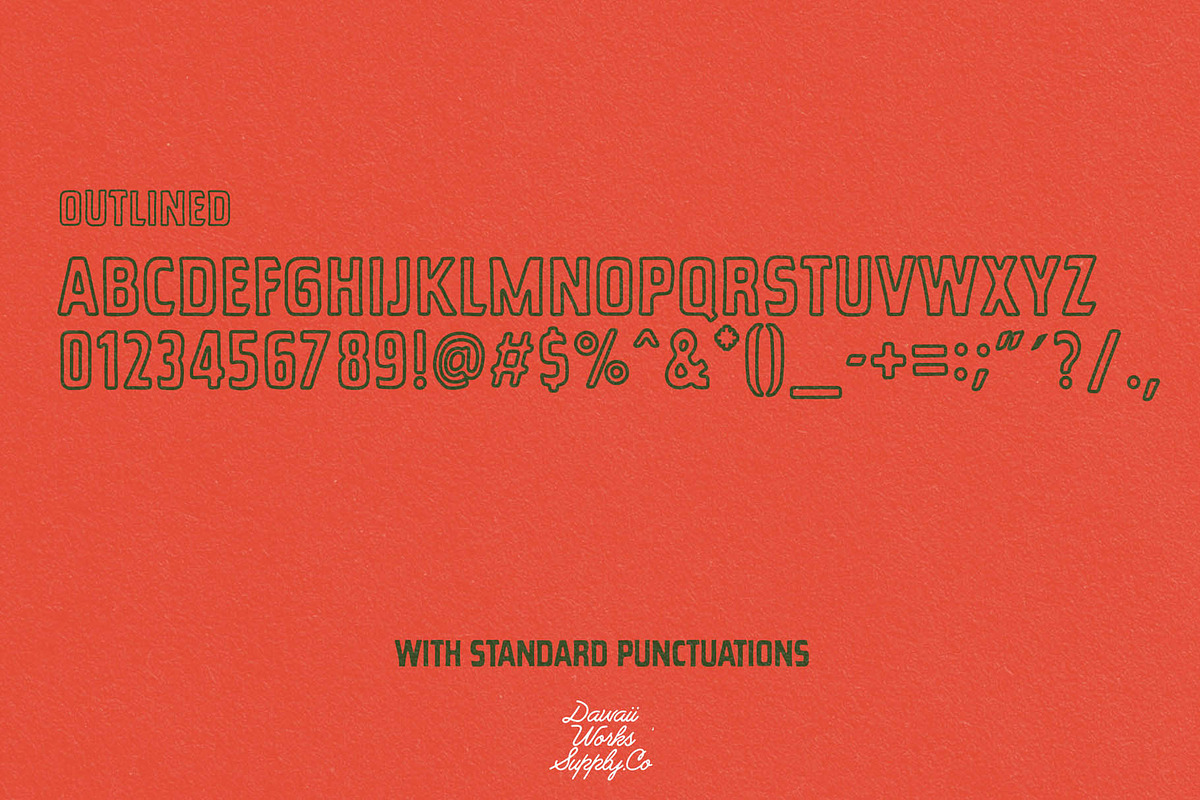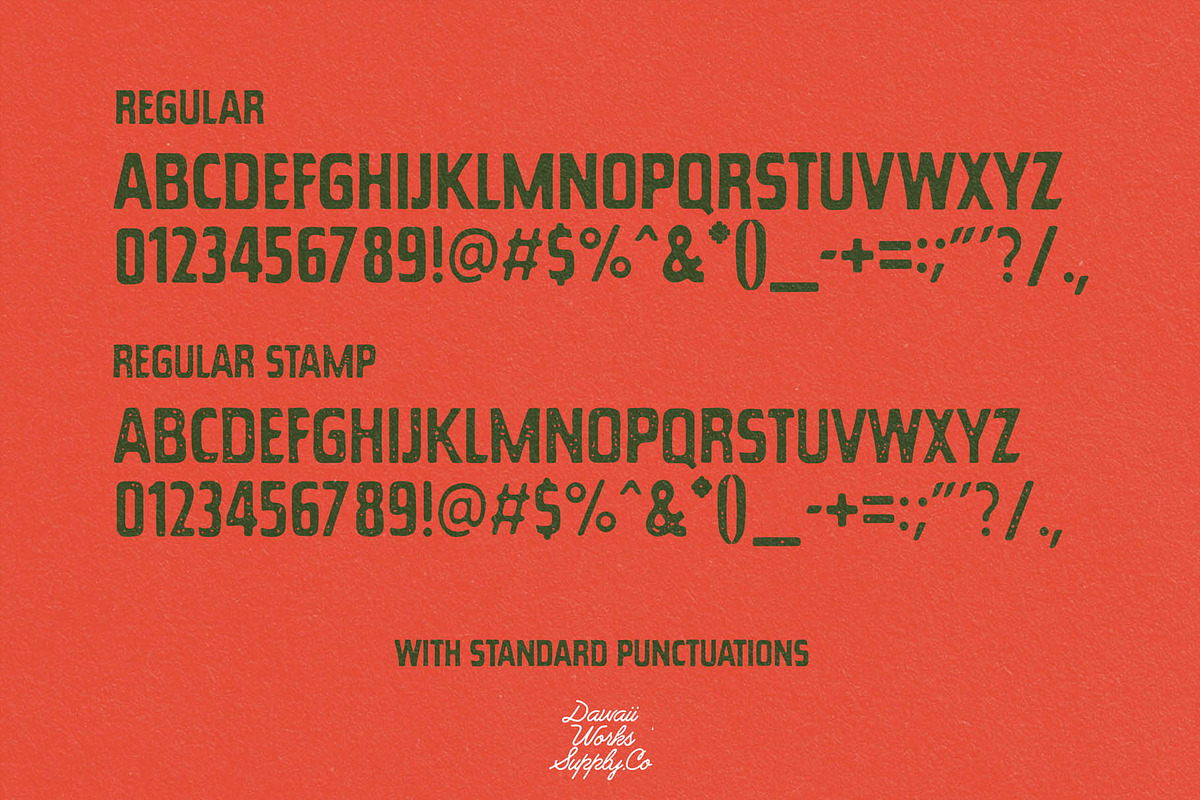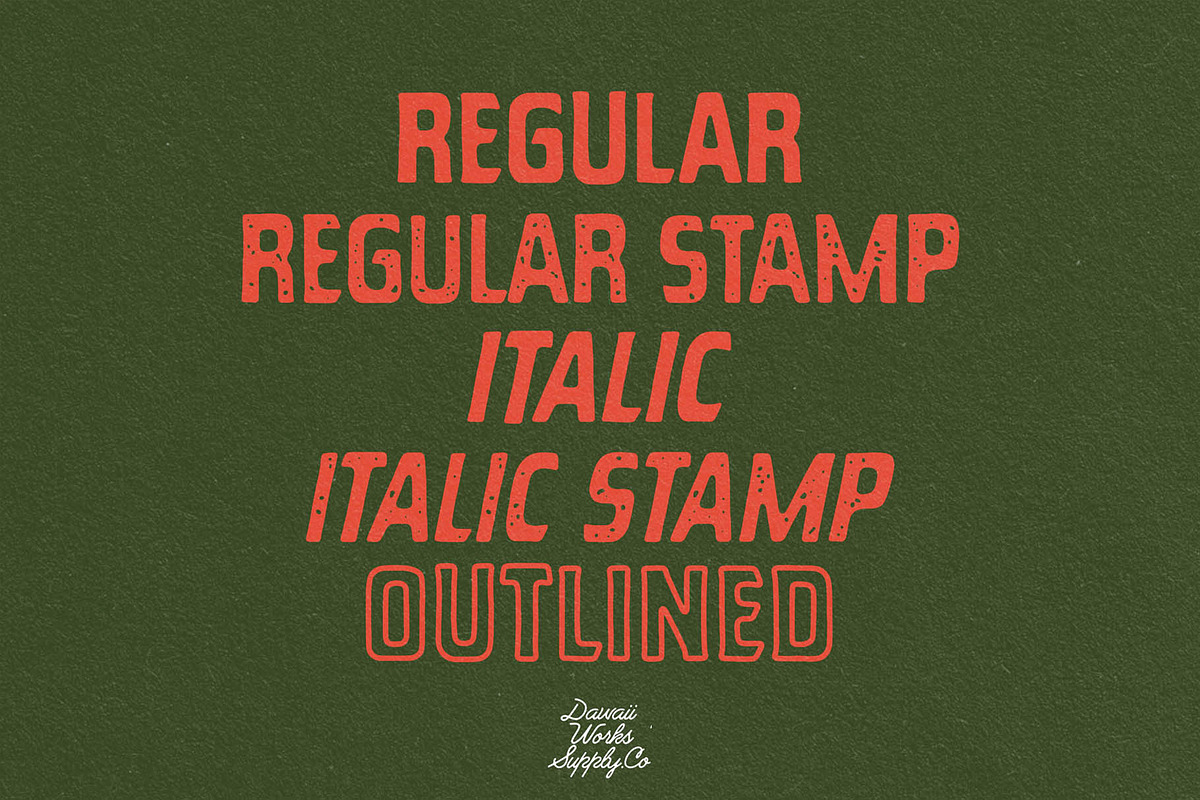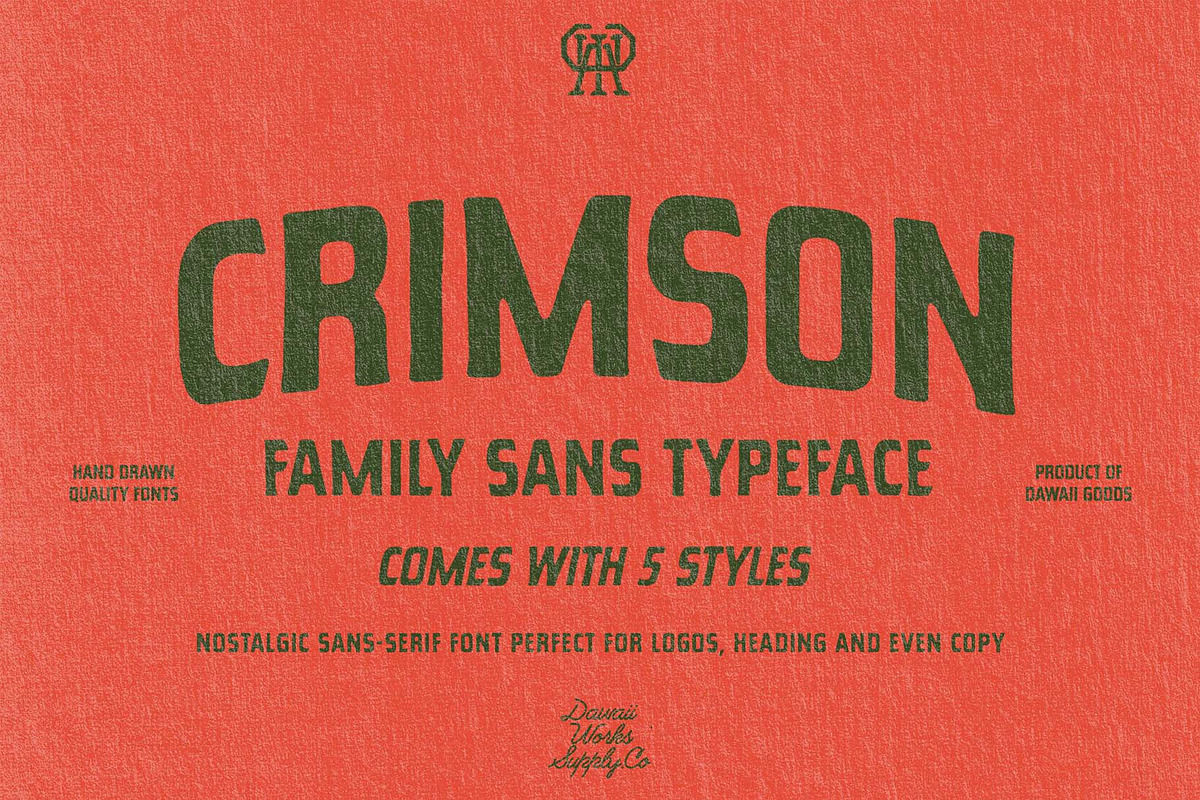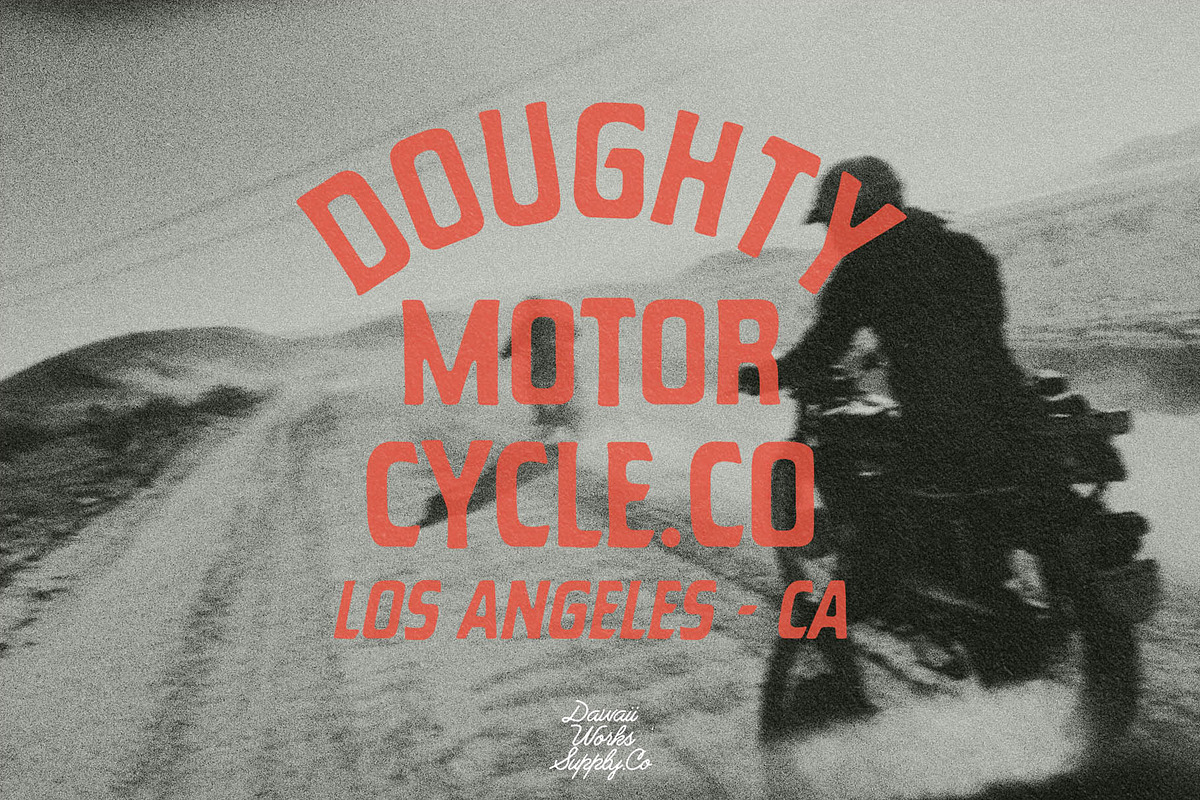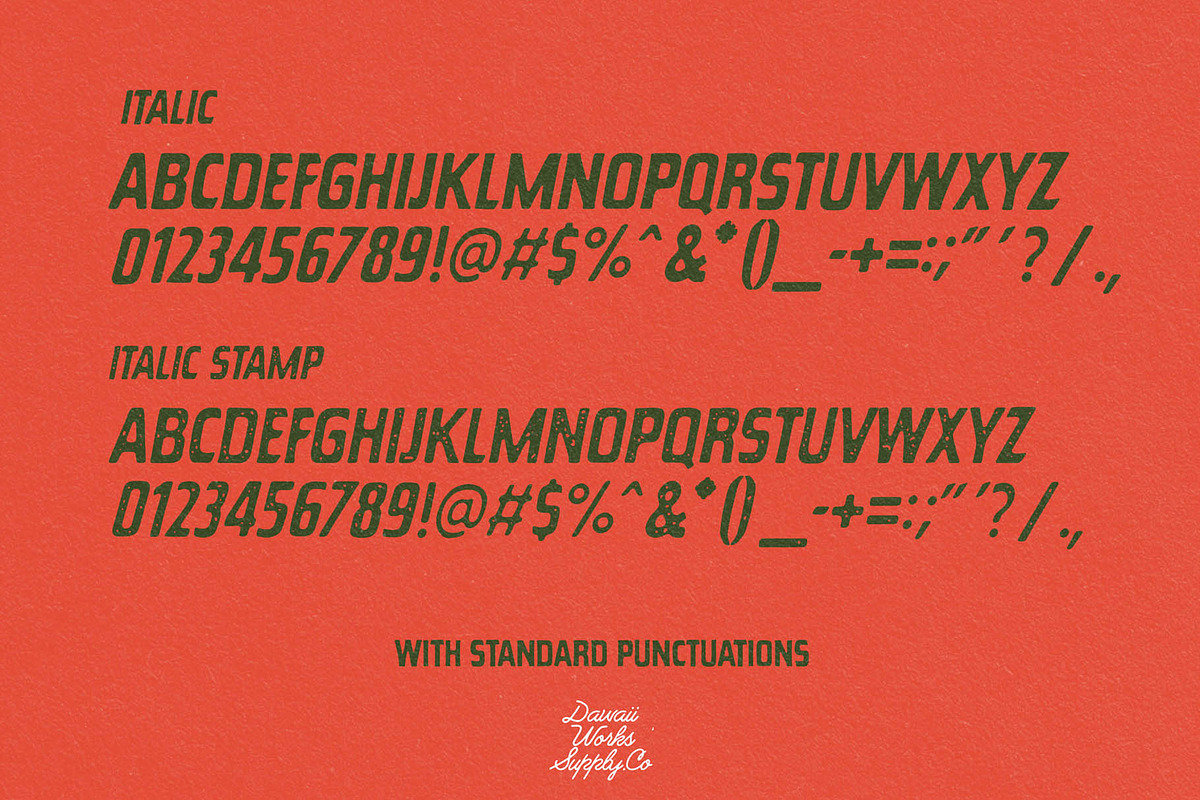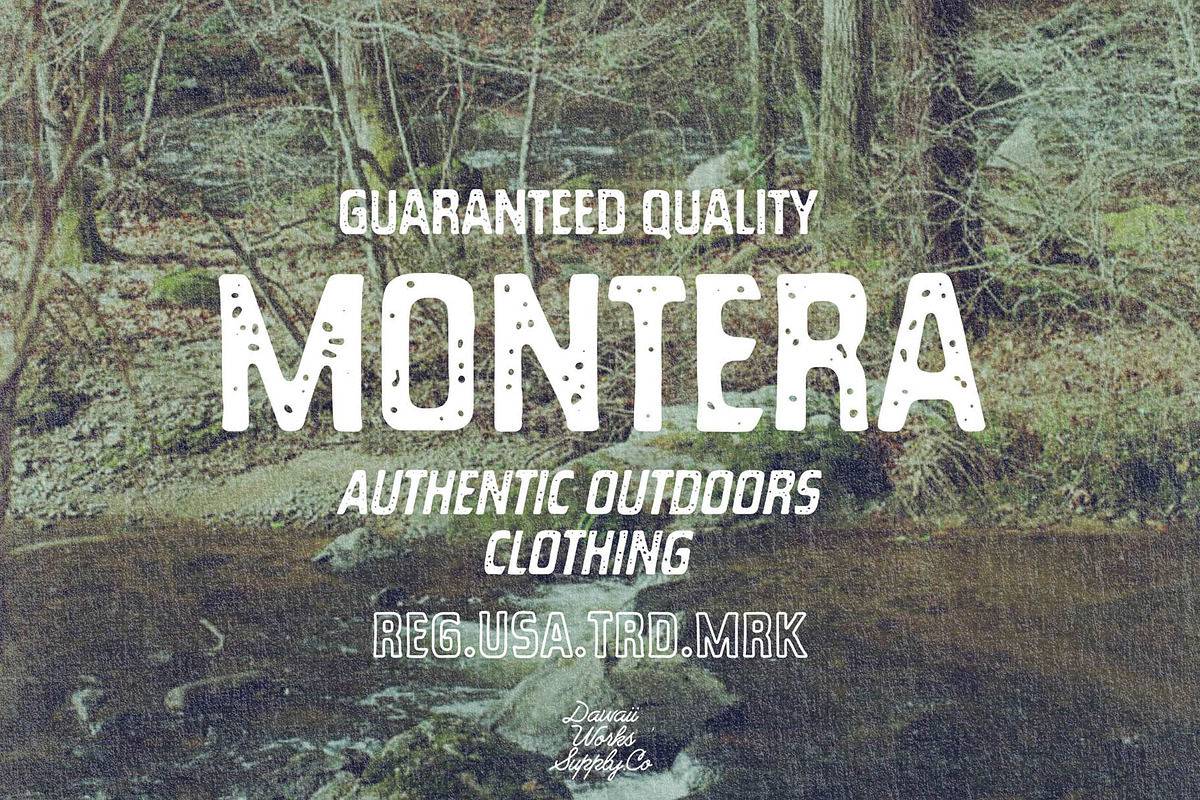
Crimson Sans
Crimson Sans is a versatile typeface that elegantly blends vintage charm with modern usability, drawing inspiration from the rustic aesthetics of outdoor adventures. This typeface features five distinct styles, each crafted to evoke a sense of nostalgia while remaining functional for contemporary design needs.
Designed by Dawaii Works 2024